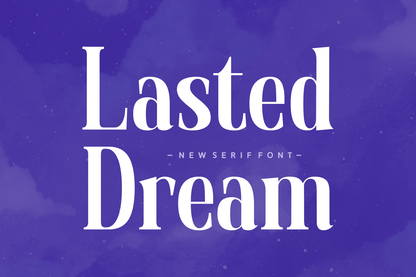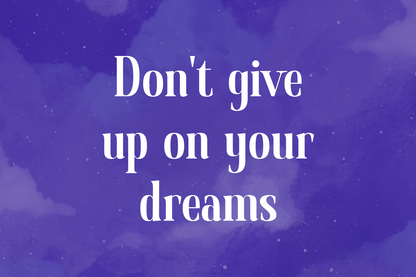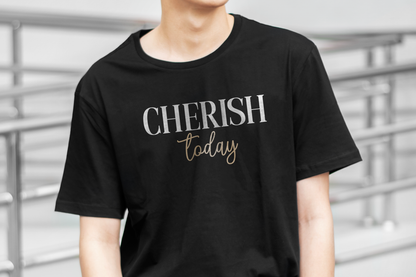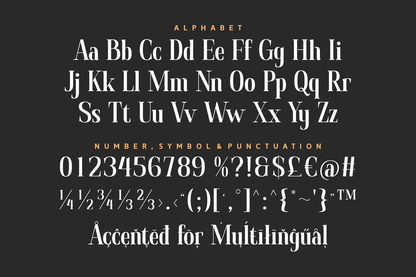
Lasted Dream is a sophisticated serif font that blends elegance with character, making it ideal for both modern and vintage-inspired designs. Its clean yet expressive style balances readability with personality, while full multilingual support and a range of punctuation make it a versatile choice for creatives who want timeless appeal with a fresh twist.